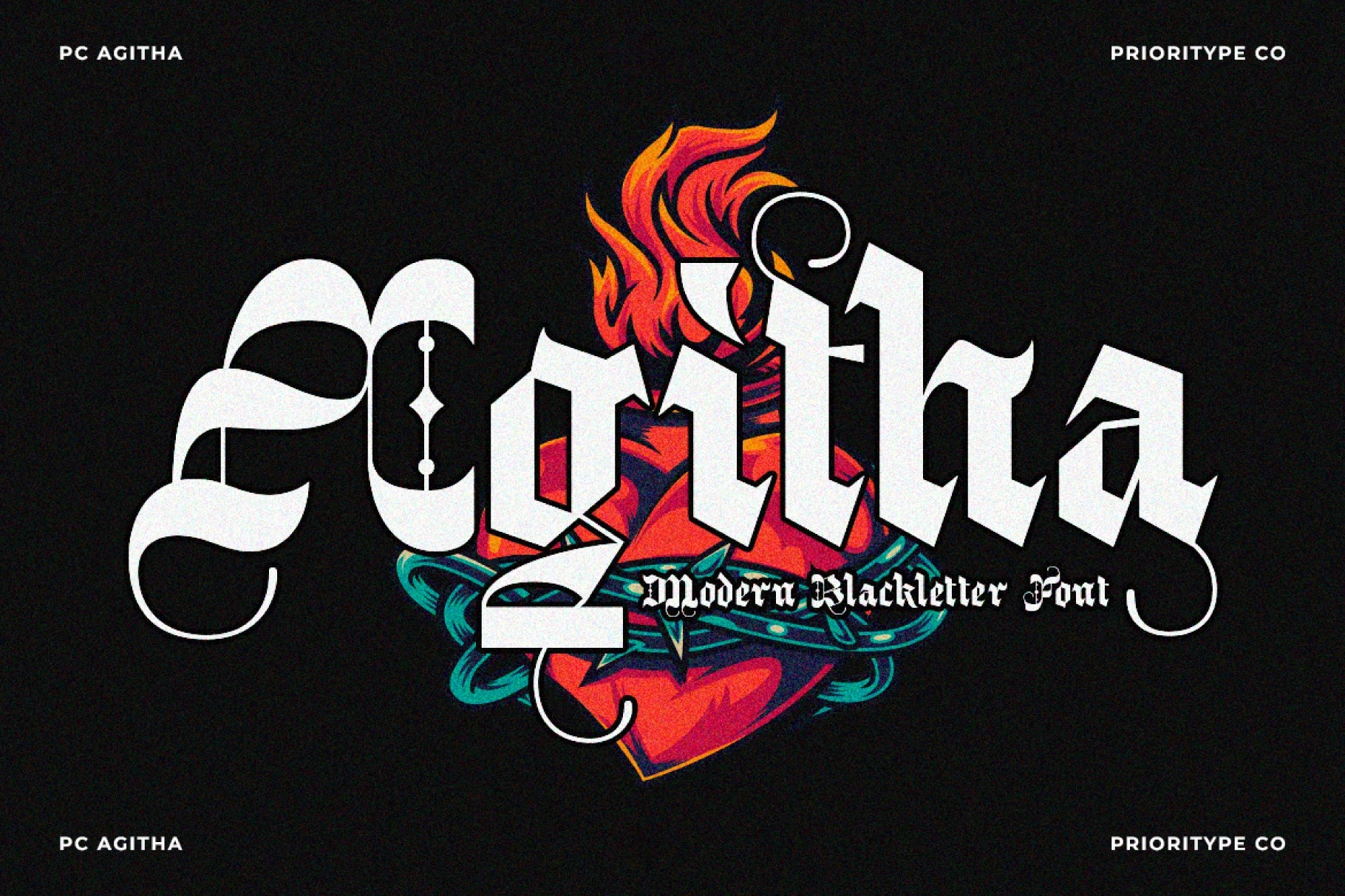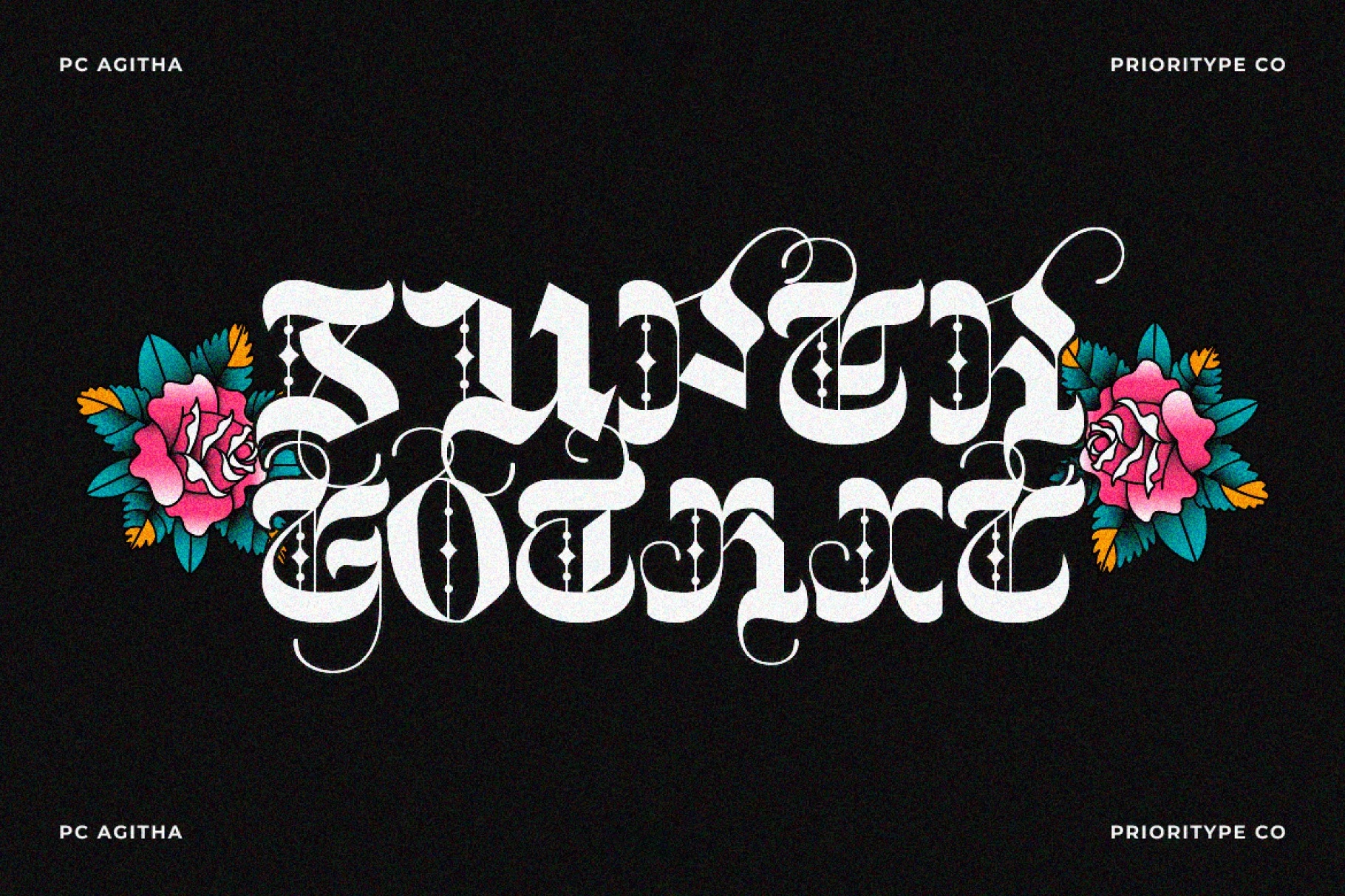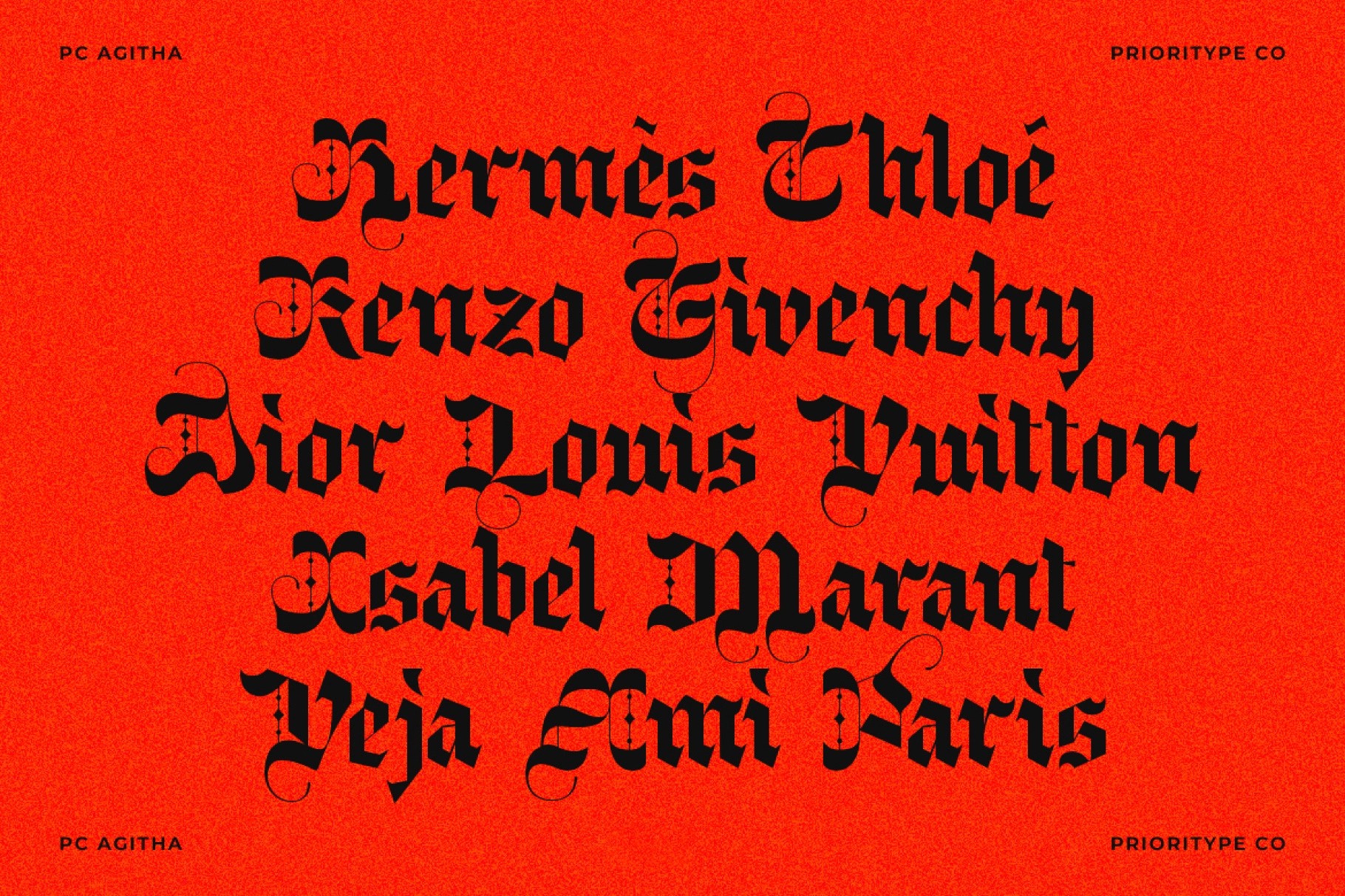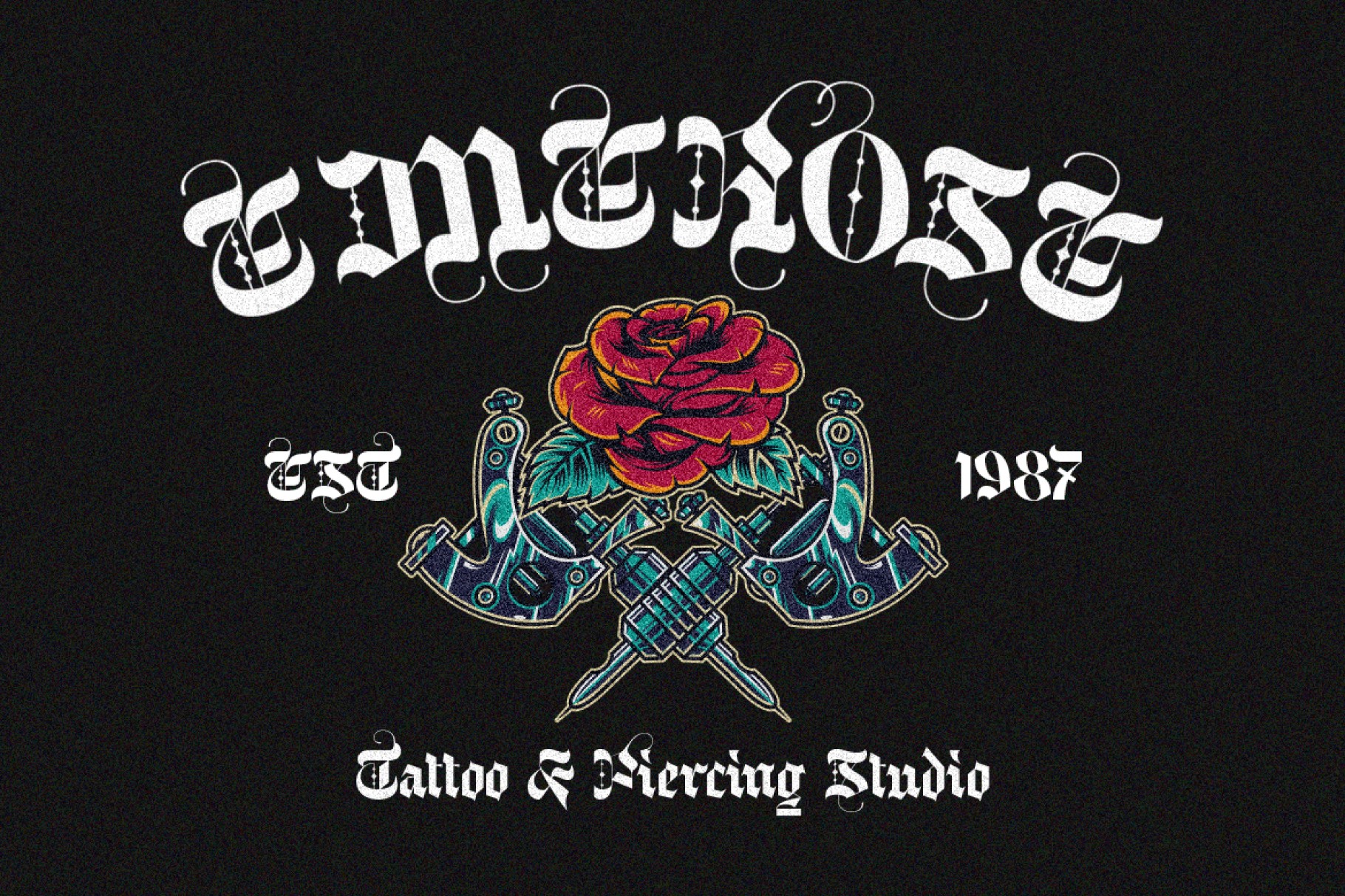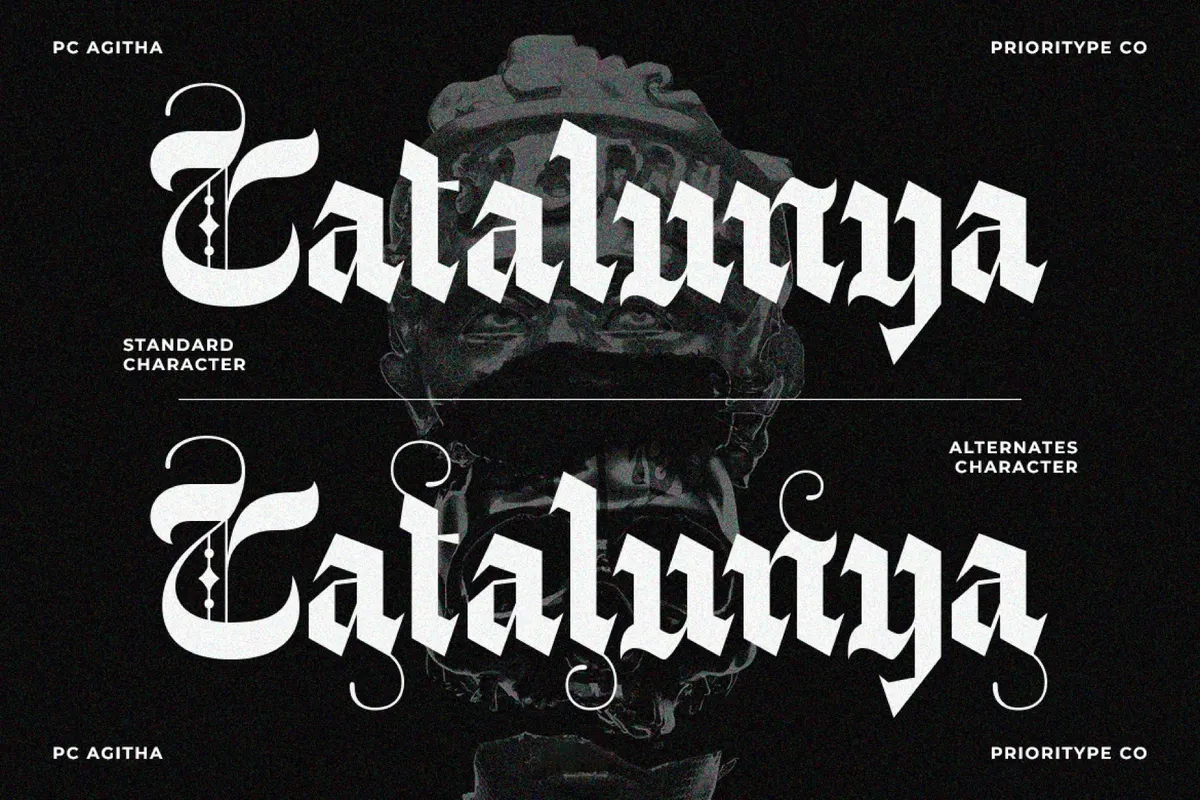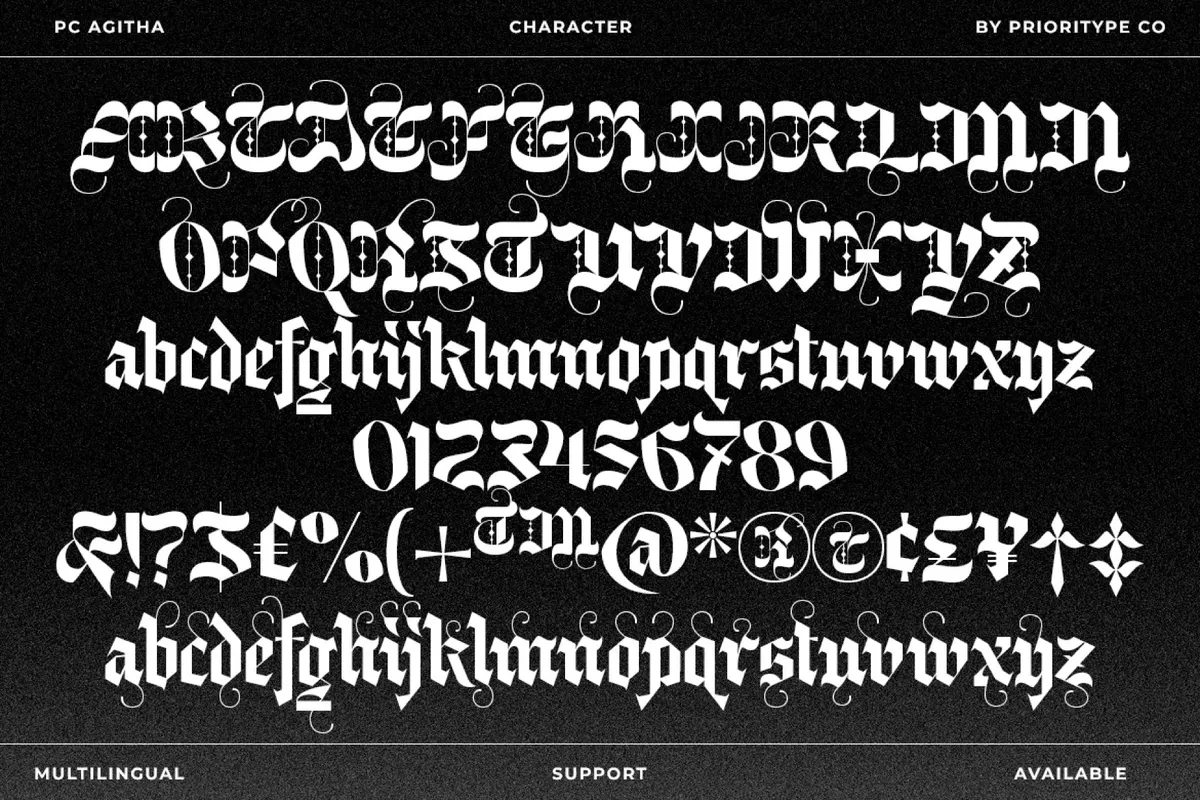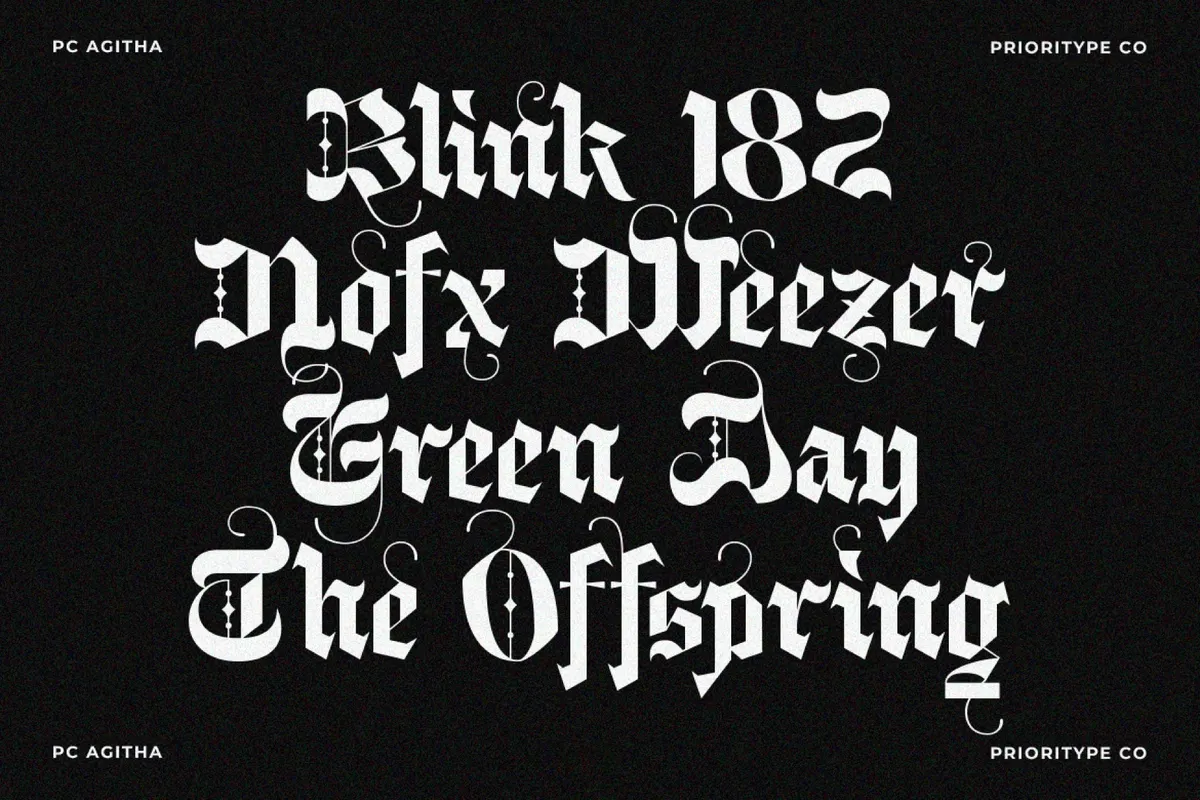
PC Agitha – Modern Blackletter Font
PC Agitha – Modern Blackletter Font that masterfully blends gothic tradition with contemporary refinement. Inspired by classic Old English typography, this typeface reinterprets historic letterforms with cleaner structure, smoother curves, and elegant ornamental details — creating a bold yet sophisticated visual identity.
With its sharp angles, dramatic strokes, and subtle decorative swashes, PC Agitha delivers strong character while remaining highly usable for modern design needs. It’s perfect for projects that demand authority, heritage, and artistic flair — without feeling outdated.
Whether you're designing logos, album covers, posters, branding, merchandise, tattoos, or editorial layouts, PC Agitha brings a timeless aesthetic reimagined for the digital era.
- Modern blackletter display font
- Classic gothic-inspired letterforms
- Elegant swashes & ornamental details
- Uppercase & lowercase